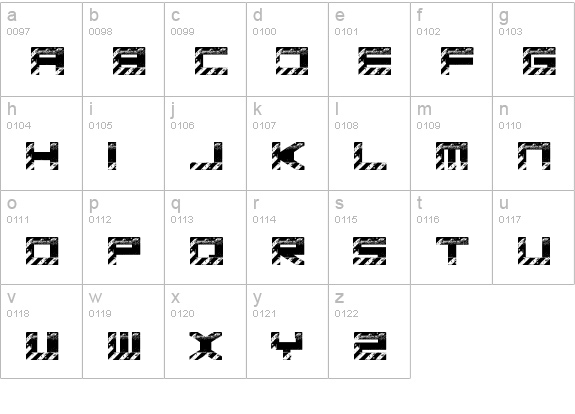
Basica industrial Font Details
Basica Industrial font is a striking and bold typeface that perfectly captures the essence of the industrial world. Its strong and sturdy letterforms exude power and confidence, making it the ideal choice for projects that require a bold statement. This industrial-inspired font is perfect for logos, headlines, product packaging, and any design that needs a touch of rugged sophistication. With its sharp edges and geometric shapes, Basica Industrial font commands attention and adds a modern edge to any design. It is designed with meticulous attention to detail, ensuring that each character is well-crafted and visually appealing. What makes Basica Industrial font even more appealing is that it is free to download at FontsMarket.com. This means that you can easily access this stunning font and use it in your personal and commercial projects without any restrictions. Whether you're a designer, a business owner, or a creative individual, Basica Industrial font will add a unique and professional touch to your work. So, unleash your creativity and explore the possibilities that Basica Industrial font brings. Download it today from FontsMarket.com and elevate your designs to new heights.